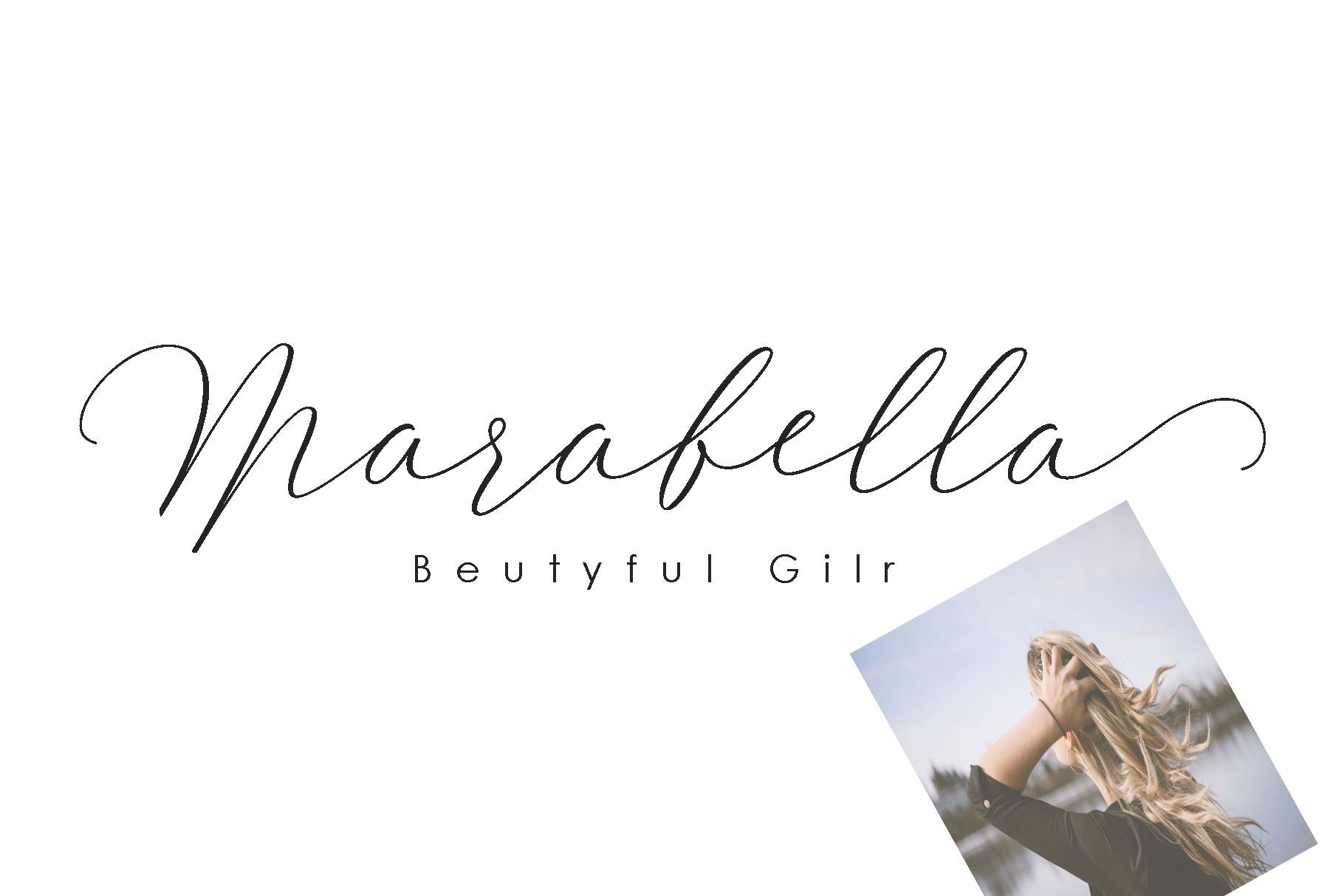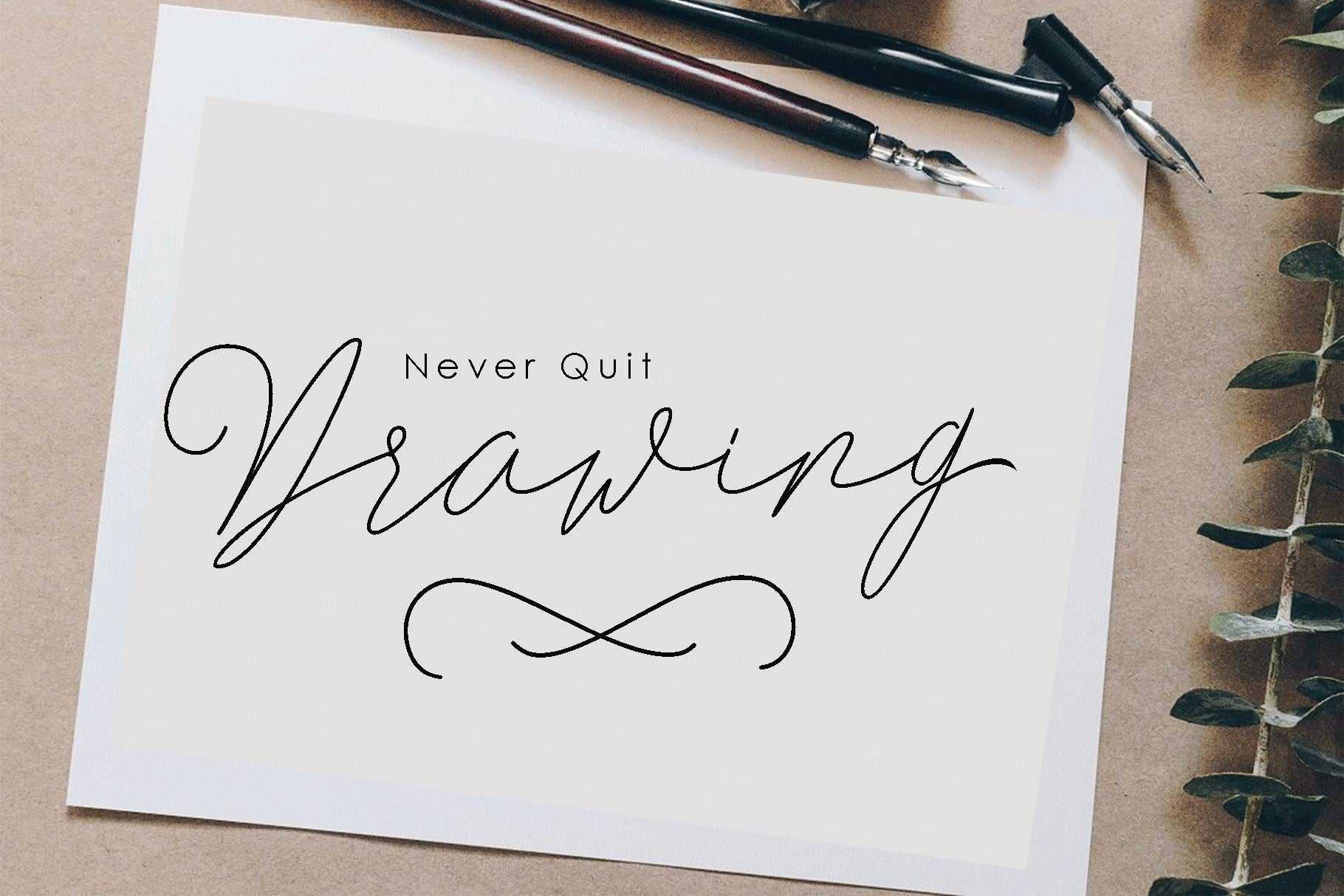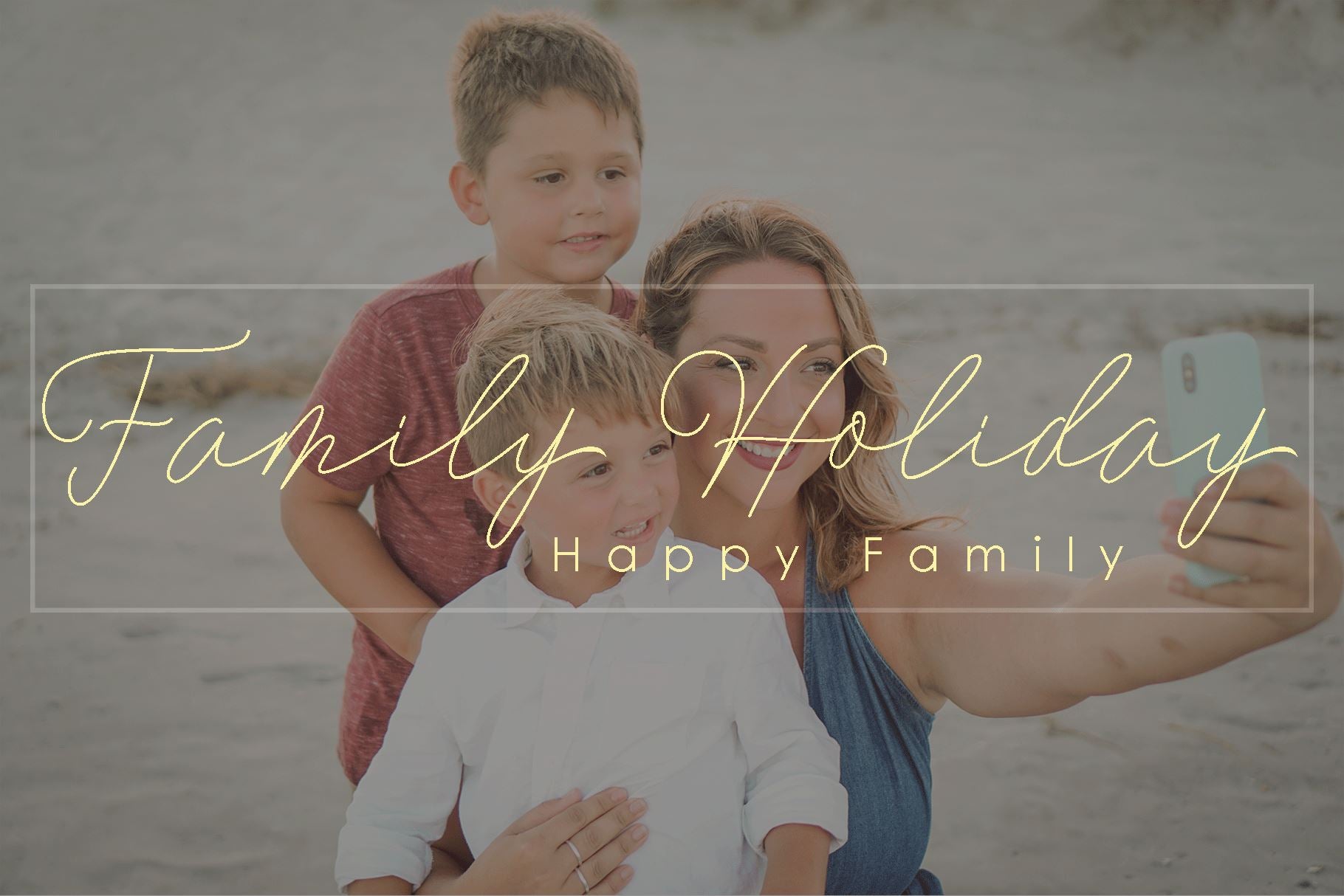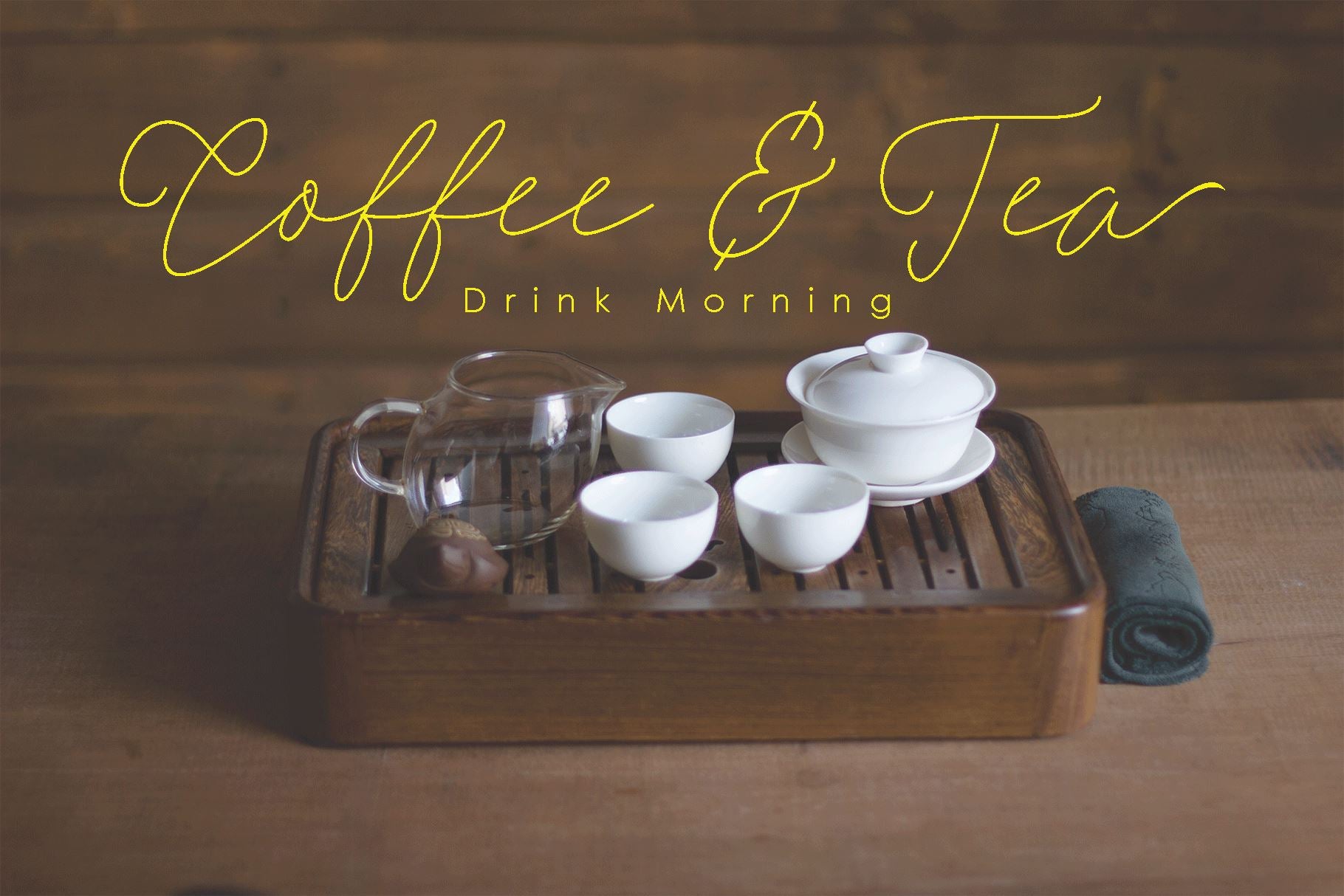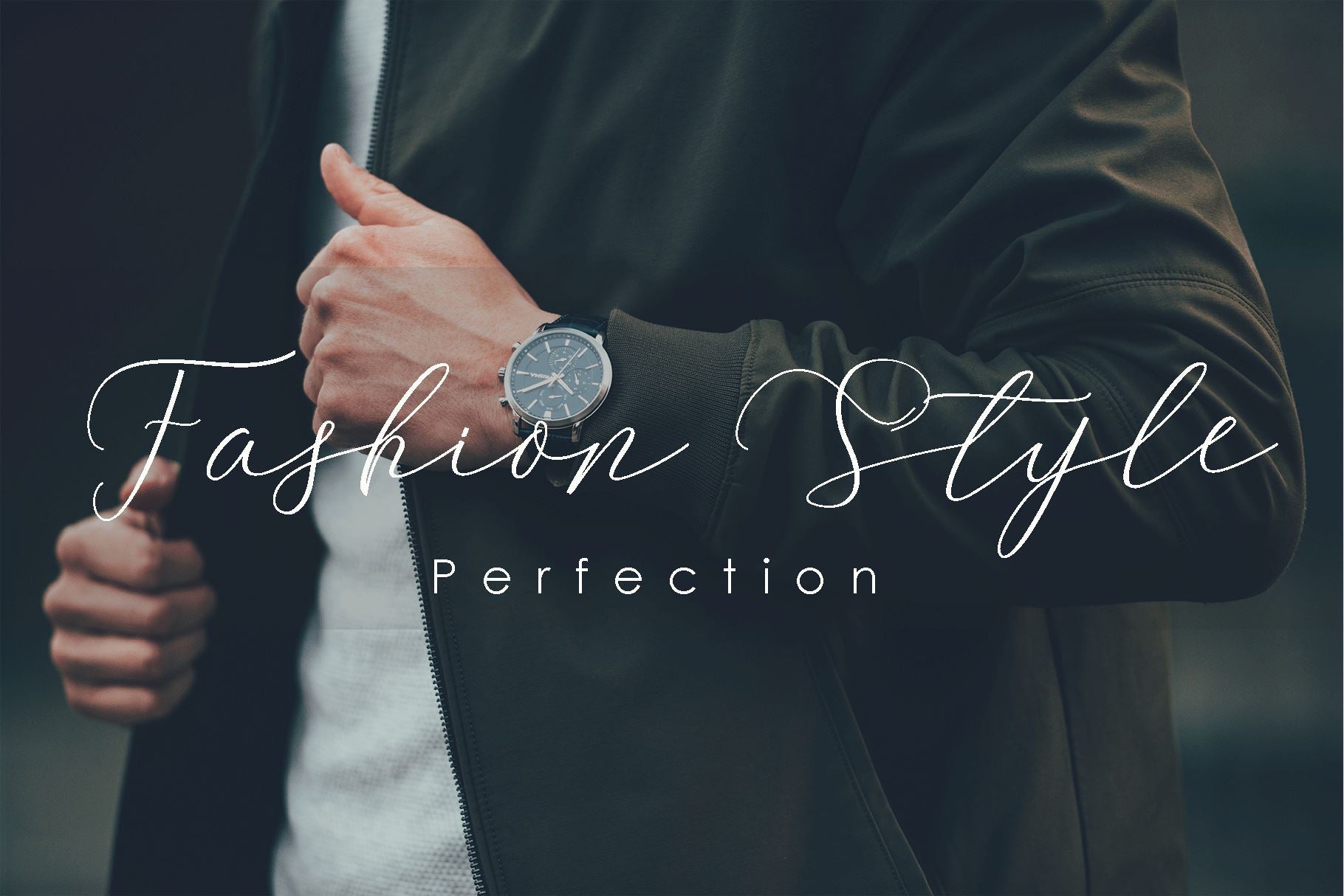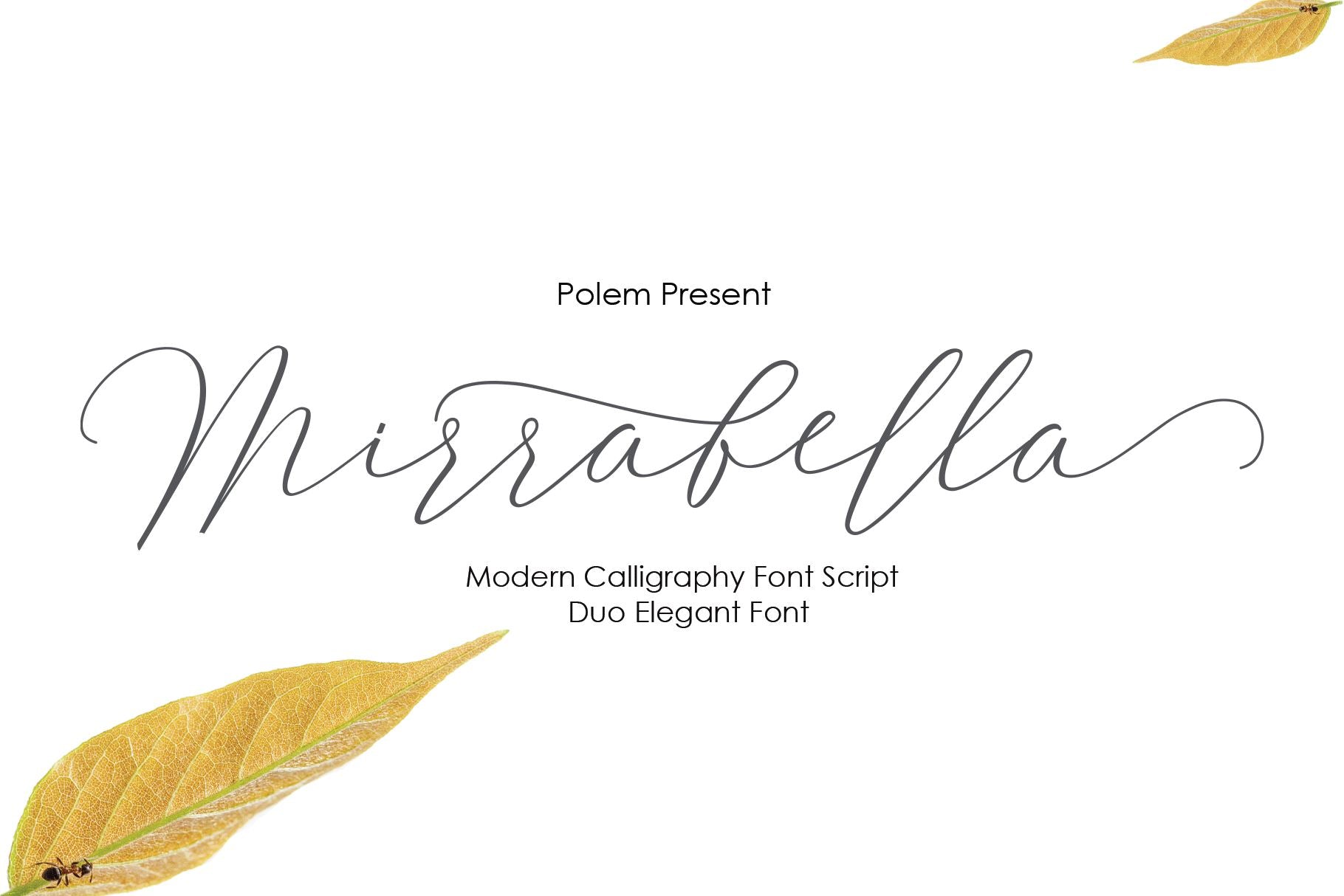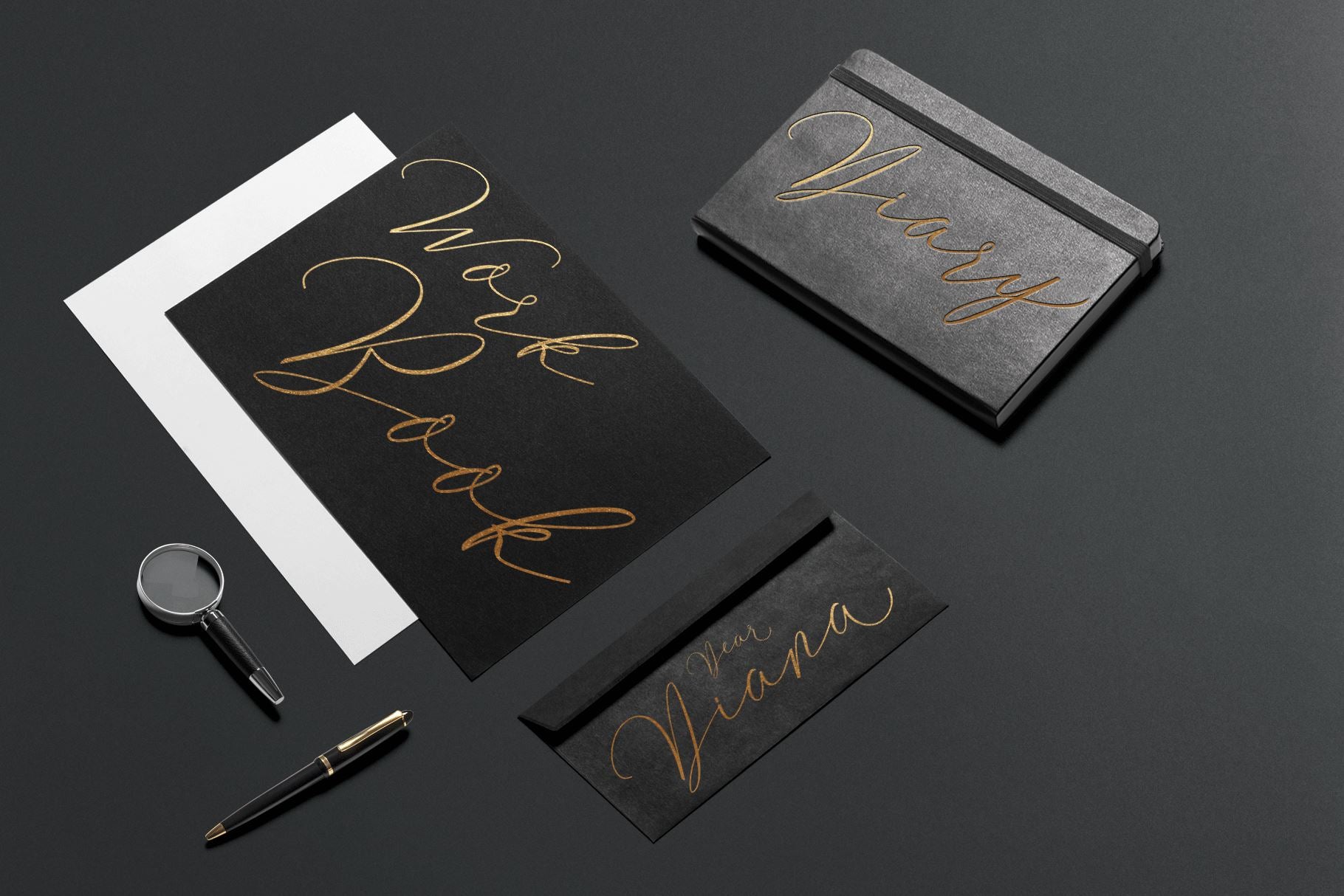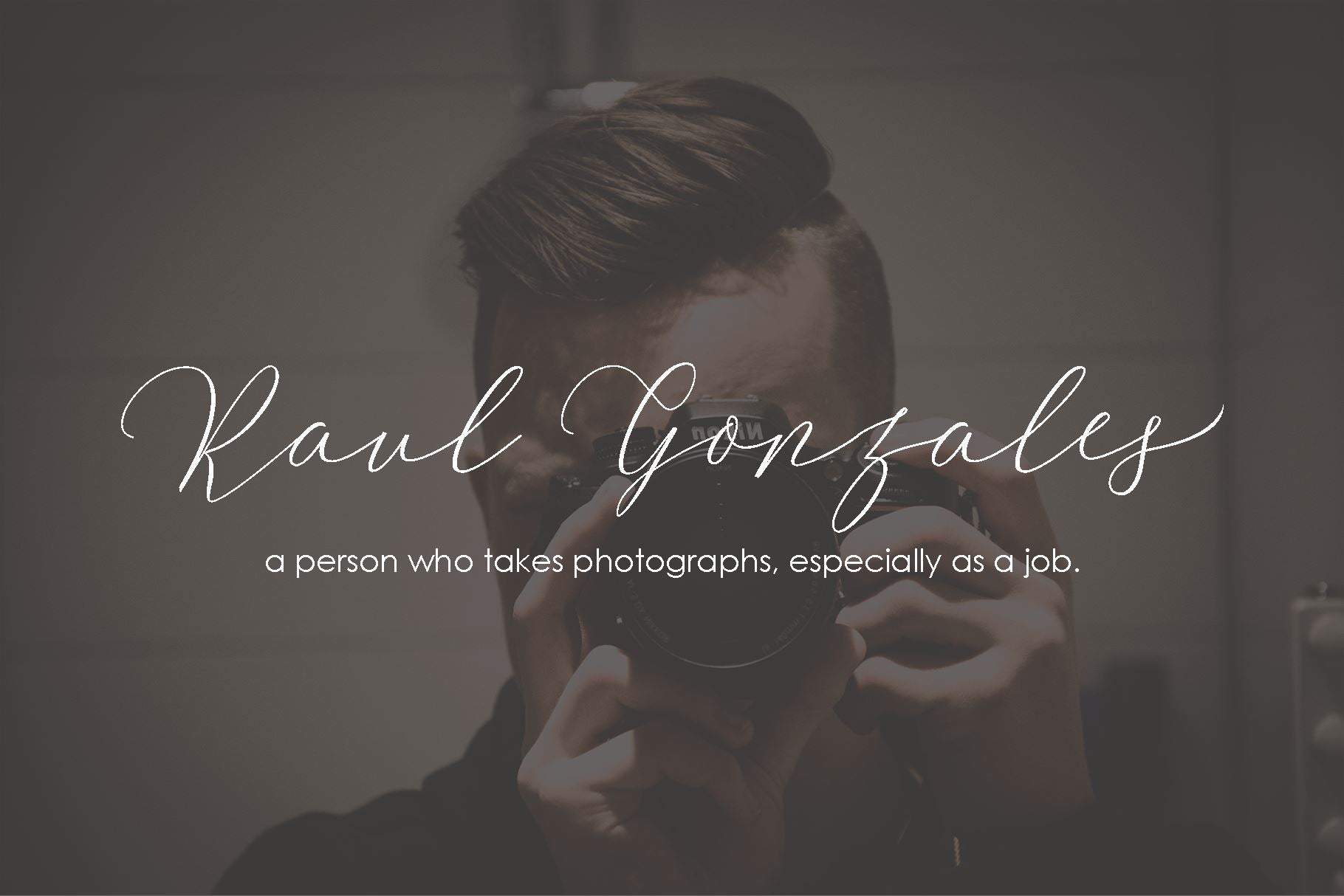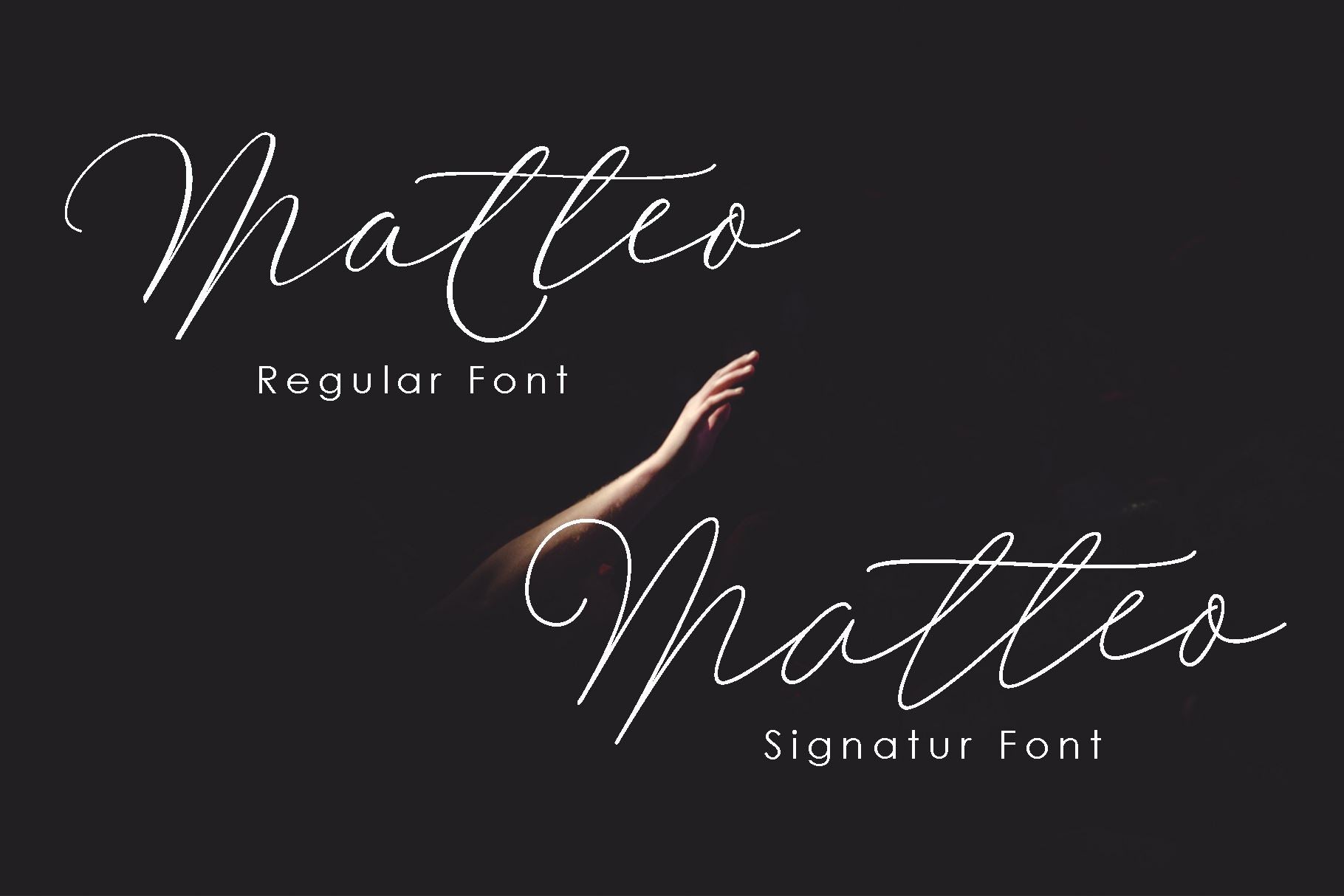
Mirrabella Duo Font
About Mirrabella Duo Font
Mirrabella & Matteo Duo Script is a soft and beautiful font that has a connection to the upper part of the letter, this is something unique but very beautiful, luxury and charming. This font is to complement your design needs in making amazing works. Mirrabella & Matteo is perfect for branding, wedding invitations, magazines, mugs, business cards, quotes, posters, and many more that you can use on your big project will be very beautiful. Mirrabella & Matteo has been equipped with the OpenType feature and has many glyphs. and of course having a lot of flying machines will be able to choose letters to your liking, lots of variations and choices for each letter, so you can adjust your design choices and also have other languages ??supported. which you will get in this package: Mirrabella. TTF Mirrabella. OTF Mirrabella Font Web Mirrabella PUA Unicode Matteo. TTF Matteo. OTF Matteo Font Web Matteo PUA Unicode do not hesitate to buy and have this gorgeous font, as i will soon be updating for the version Programs that support in this font is a Photo Shop, Adobe Illustrator, Adobe Indesign, Corel Draw and Microsoft Office. Can be used for various purposes.such as headings, logos, wedding invitation, t-shirt, letterhead, signage, lable, news, posters, badges etc. To enable the OpenType Stylistic alternates, you need a program that supports OpenType features such as Adobe Illustrator CS, Adobe Indesign & CorelDraw X6-X7. This font is very suitable for use with programs that support OpenType features such as Adobe Photoshop Cs / Adobe Photoshop CC, Adobe Illustrator CS / Adobe Illustrator CC, Adobe Indesign and Corel Draw and many more programs that support OpenType. Can be used for various purposes.such as headings, logos, wedding invitation, t-shirt, letterhead, signage, lable, news, posters, badges etc. if you have any questions, don’t hesitate to contact me via email  Thank you and happy designing Your best. Like, comment and share.